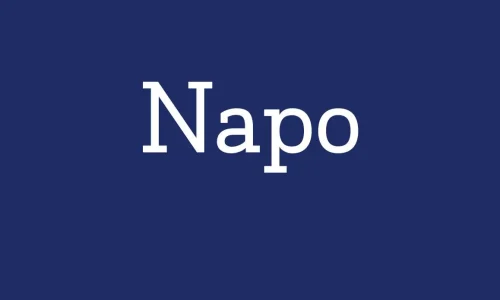
We present a new stylish typeface that was known by the name Honda Logo Font. This typeface was first seen in the Honda logo. The main designer of this typeface is Sharkshock. It belongs to the Slab Serif typeface. This font family consists of four members including Regular, Italic, Bold, and Bold Italic. All of these fonts have a unique texture.
Honda Logo Font Family
| Name | Honda Logo Font |
| Designer | Sharkshock |
| Style | Slab seirf |